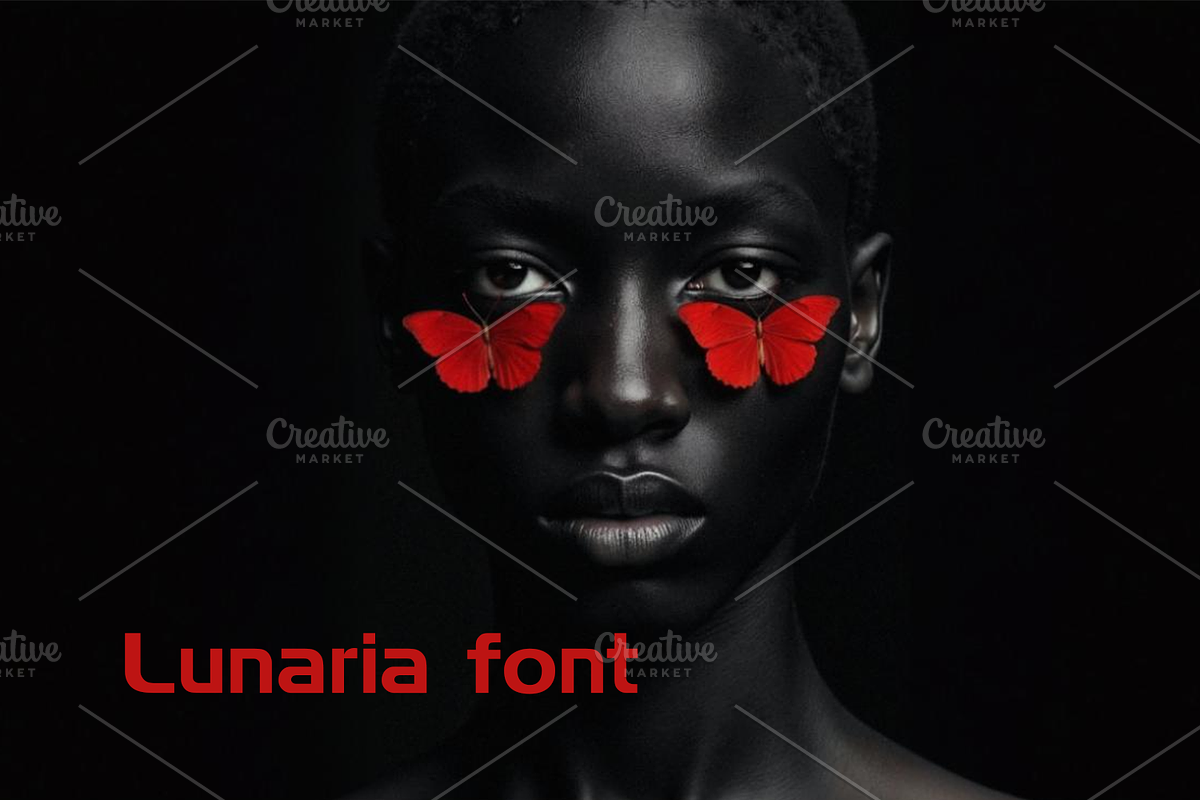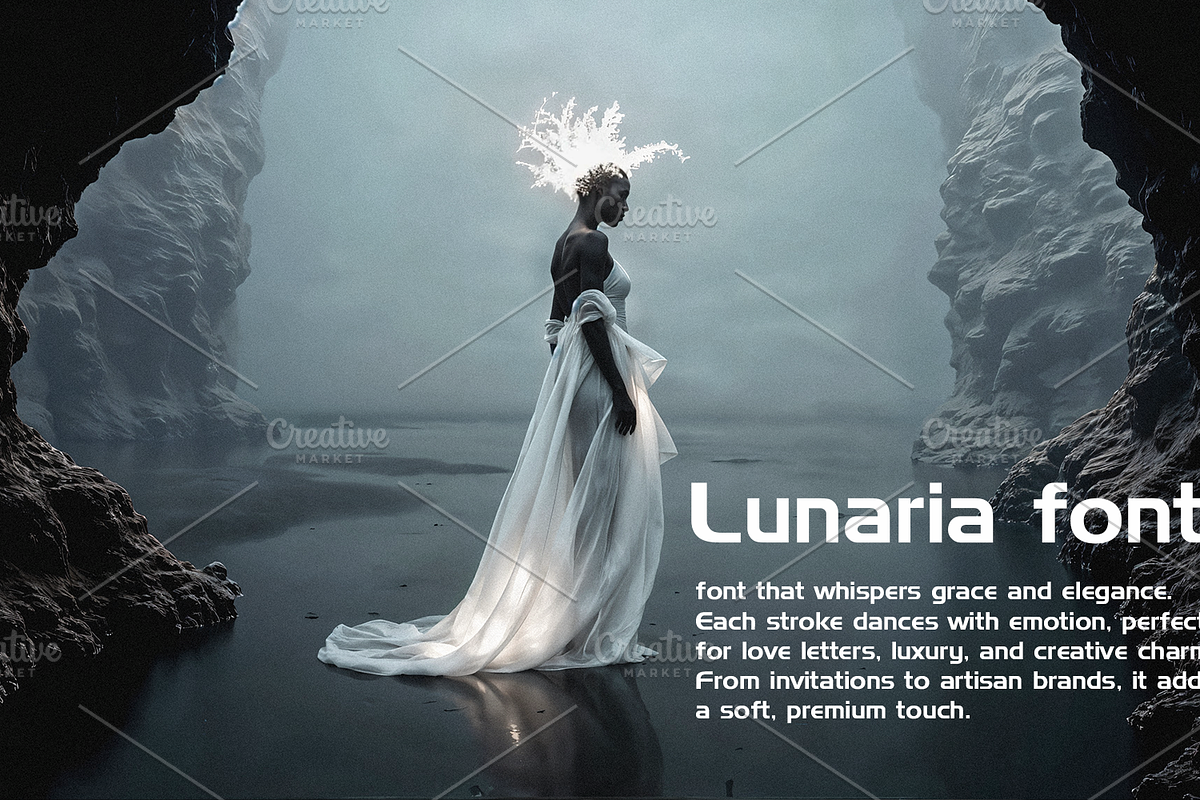
Introducing Lunaria a calligraphy font that whispers grace and elegance.
Each stroke dances with emotion, perfect for love letters, luxury, and creative charm.
From invitations to artisan brands, it adds a soft, premium touch.
Delicate, fluid, and endlessly romantic.
Lunaria: Because beauty deserves the right handwriting.